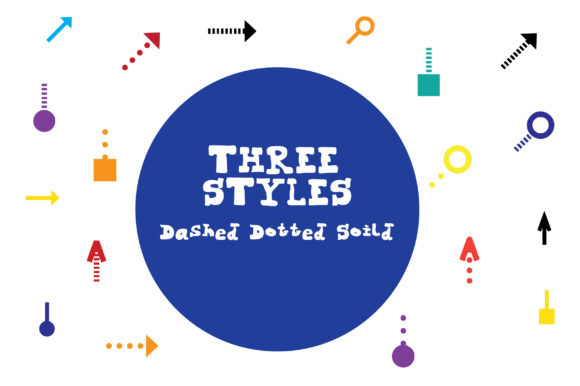
Unlock Creative Potential with BM Graphics – Graphic Arrows Glyph Font
Are you tired of using the same old fonts in your design projects? Do you want to add a unique touch to your creations and make them stand out from the crowd? Look no further than BM Graphics – Graphic Arrows Glyph Font, an amazing dingbats font that consists of a massive pack of awesome arrows. In this article, we’ll explore the features and benefits of this incredible font and how it can elevate your design game.
What is BM Graphics – Graphic Arrows Glyph Font?
BM Graphics – Graphic Arrows Glyph Font is a dingbats font that offers a vast collection of arrows, carefully crafted to help designers and crafters add a creative twist to their projects. This font is perfect for anyone looking to add a touch of uniqueness to their designs, whether it’s for a logo, infographic, presentation, or any other visual project.
Key Features of BM Graphics – Graphic Arrows Glyph Font
• Massive Pack of Arrows: With BM Graphics – Graphic Arrows Glyph Font, you’ll get access to a huge collection of arrows, including straight, curved, diagonal, and more. Each arrow is meticulously designed to ensure maximum versatility and usability.
• Unique and Creative Designs: The font features a wide range of arrow styles, from simple and minimalist to complex and intricate. This allows you to experiment with different designs and find the perfect fit for your project.
• Easily Customizable: The font is easy to use and customize, making it perfect for designers of all skill levels. You can adjust the size, color, and style to match your brand’s identity.
Benefits of Using BM Graphics – Graphic Arrows Glyph Font
So, why should you choose BM Graphics – Graphic Arrows Glyph Font for your design projects? Here are just a few benefits:
• Add a Unique Touch: With this font, you can add a unique touch to your designs and differentiate yourself from others.
• Save Time and Effort: The font’s vast collection of arrows saves you time and effort, as you don’t have to spend hours creating custom arrows from scratch.
• Enhance Visual Appeal: The arrows in this font are designed to grab attention and enhance the visual appeal of your designs.
• Perfect for Various Design Projects: Whether you’re working on a logo, infographic, presentation, or any other visual project, BM Graphics – Graphic Arrows Glyph Font is the perfect choice.
BM Graphics – Graphic Arrows Glyph Font can inspire a wide range of design projects. Here are a few ideas to get you started:
• Infographics: Use the arrows to create engaging and informative infographics that showcase data and statistics.
• Logos and Branding: Add a unique touch to your logo and branding materials with custom arrows.
• Presentations: Use the arrows to create visually appealing presentations that capture your audience’s attention.
• Social Media Graphics: Create eye-catching social media graphics with custom arrows that reflect your brand’s personality.
BM Graphics – Graphic Arrows Glyph Font is an incredible resource for designers and crafters looking to add a unique touch to their projects. With its massive pack of awesome arrows, this font offers endless possibilities for creative expression. Whether you’re working on a logo, infographic, presentation, or any other visual project, this font is sure to inspire and elevate your design game.